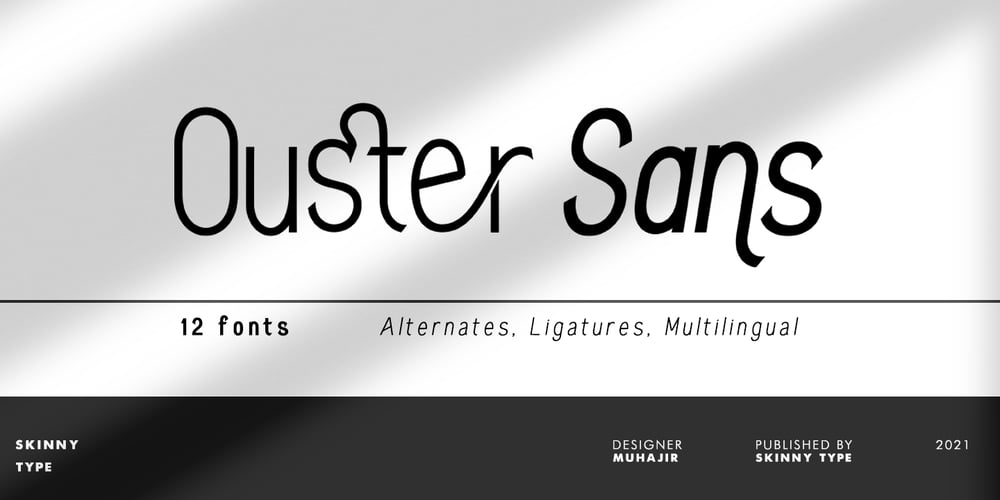
Ouster Sans Font Family was designed by Muhajir and published by Skinny Type. Ouster Sans contains 12 styles and family package options. Ouster Sans offers various options for creating logos, titles and titles. Great for books, editorial, packaging, advertising, branding and more. A modern sans serif font with a vintage touch, giving users the freedom to create compositions.Ouster Sans includes a Collection of Uppercase Letters, Styles, Latin Based Language Support, Numbers and Punctuation. Style Sets are available in Lowercase to Uppercase.Ouster Sans Also Included in 12 different weight and italic font file stylesOuster Sans is coded with PUA Unicode, which allows access to all features without special design software. Mac users can use Font Book, and Windows users can use Character Map to view and copy additional characters to paste into your favorite text editor/app.How to access all alternative characters, using the Windows Character Map with Photoshop:https://www.youtube.com/watch?v=Go9vacoYmBwHow to access all alternative characters using Adobe Illustrator:http://youtu.be/iptSFA7feQ0nnfeel free to message me if you have any issues or questions 🙂 If you need any help or have any questions let me know or send an email. I’m happy to help 🙂 Thanks & Happy Designing!